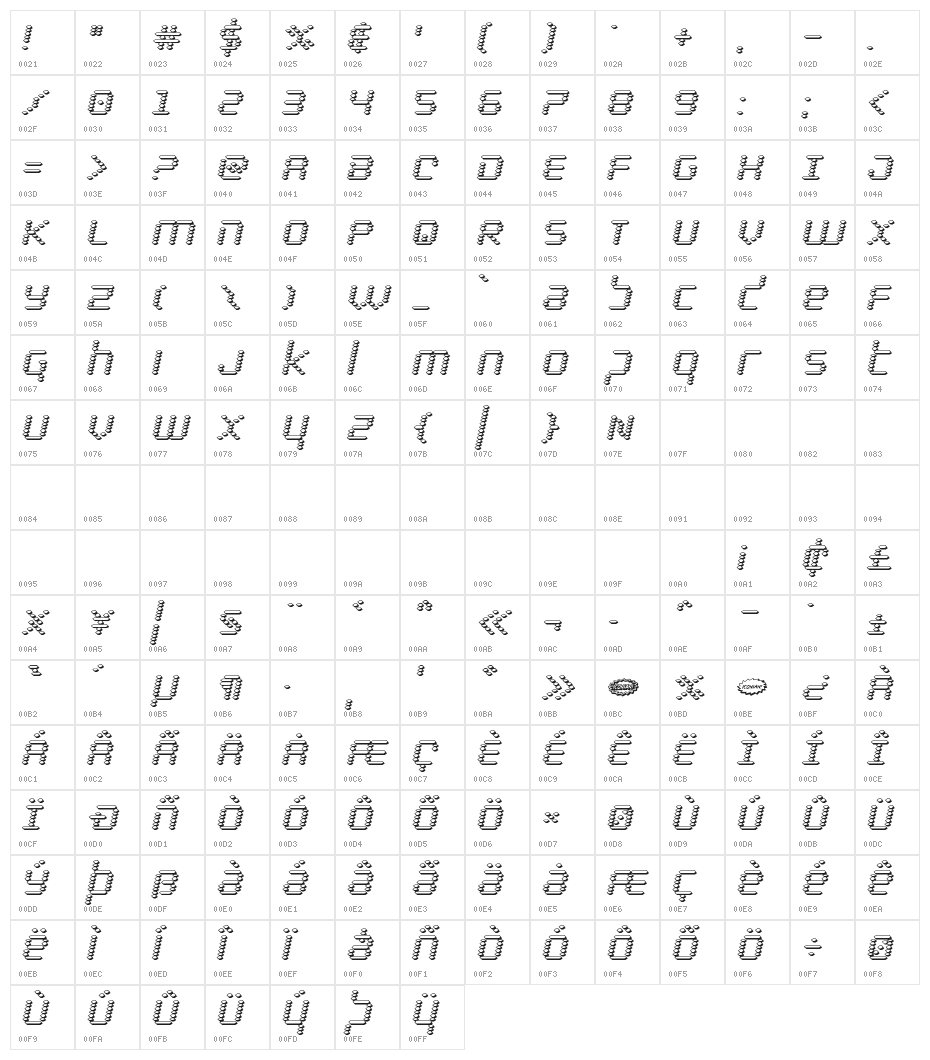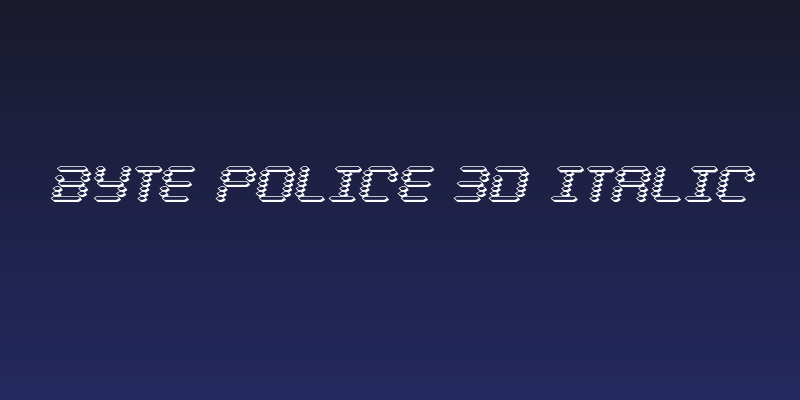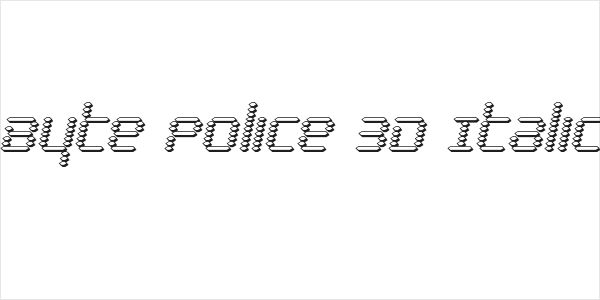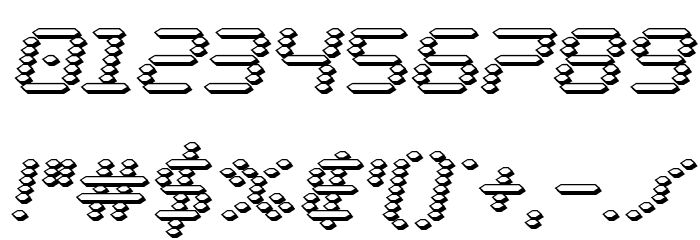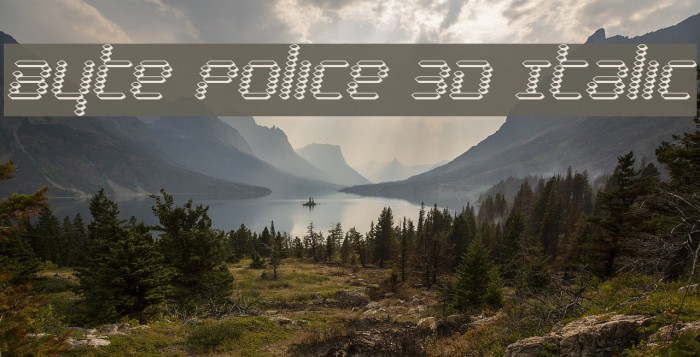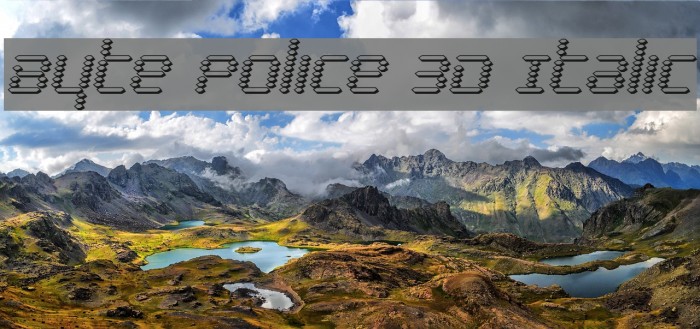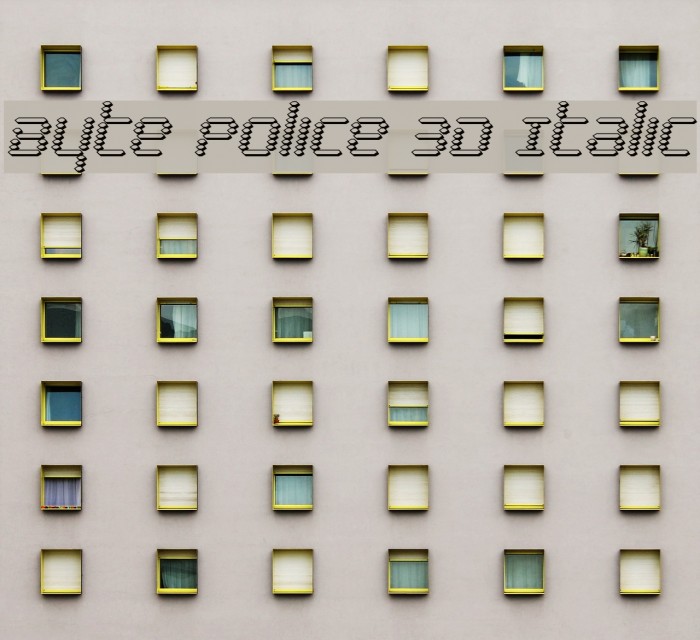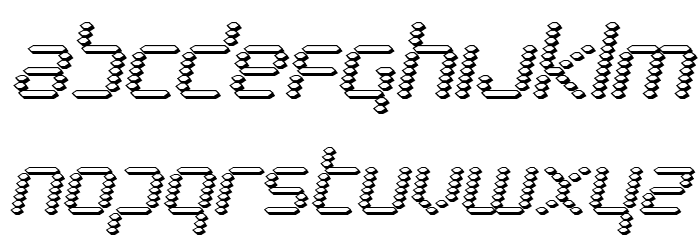
Byte Police 3D Italic Font
Byte Police 3D Italic Description
This font features a unique 3D effect created by a series of small, hexagonal shapes that form each character. The design gives an illusion of depth and dimension, making it stand out with a futuristic and digital aesthetic. The characters are constructed with a consistent pattern, maintaining uniformity across both uppercase and lowercase letters, as well as numbers and special symbols. The style is bold and eye-catching, suitable for projects that require a modern and tech-inspired look. The italic slant adds a dynamic feel, enhancing the sense of movement and energy.
| Overall Style | Futuristic |
| Use Case | Logos, Headlines, Posters |
| Proposed Projects | Ideal for tech-related branding, video game titles, digital artwork, and futuristic posters. |